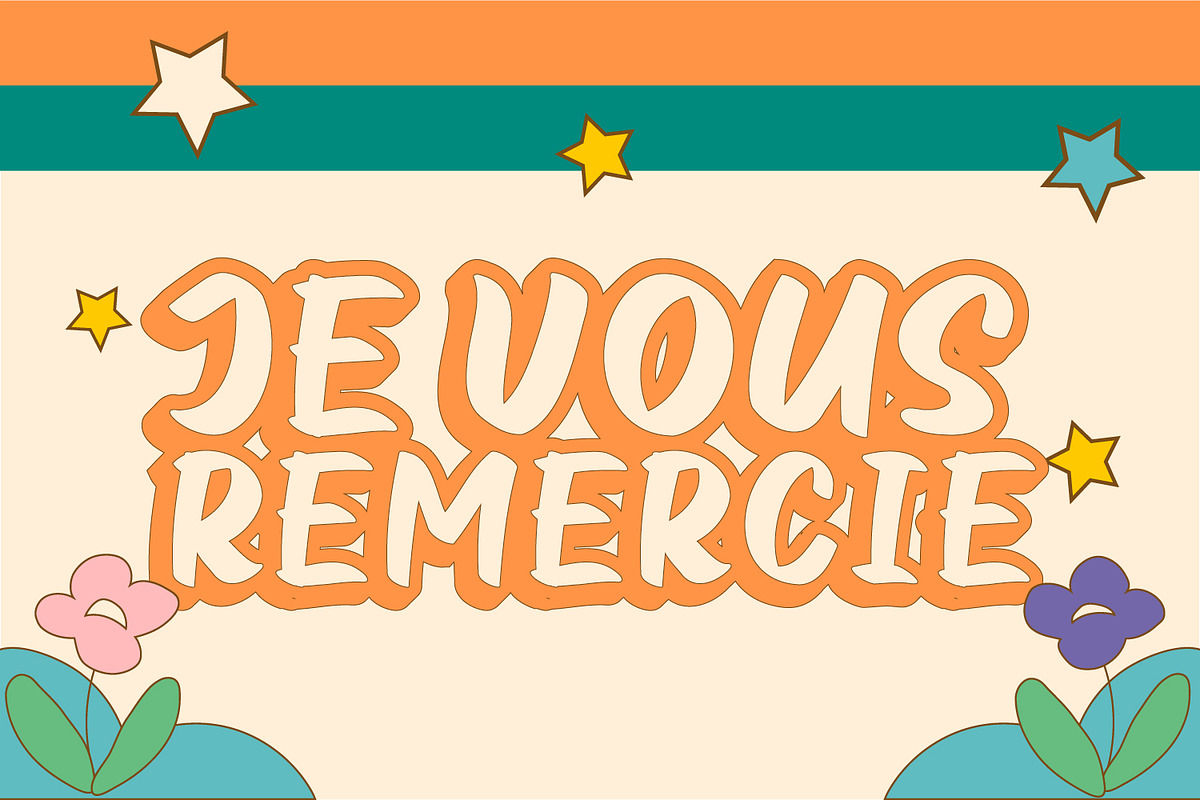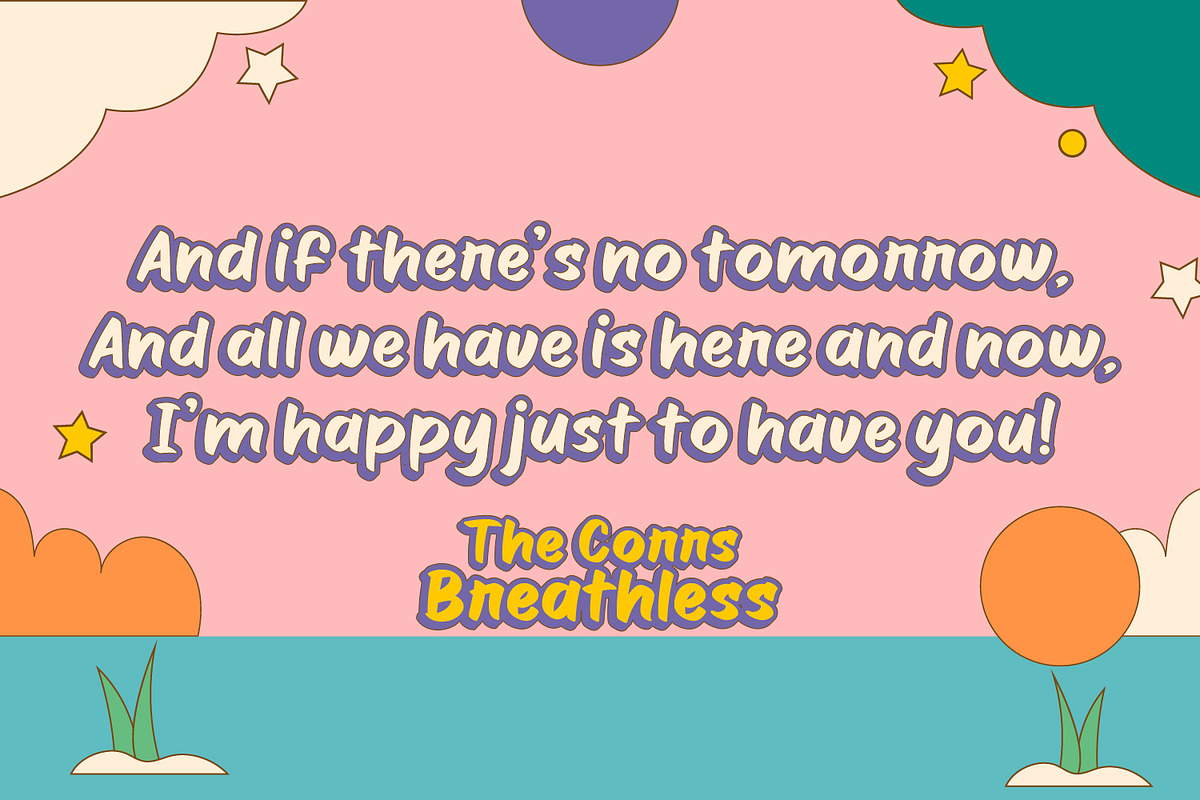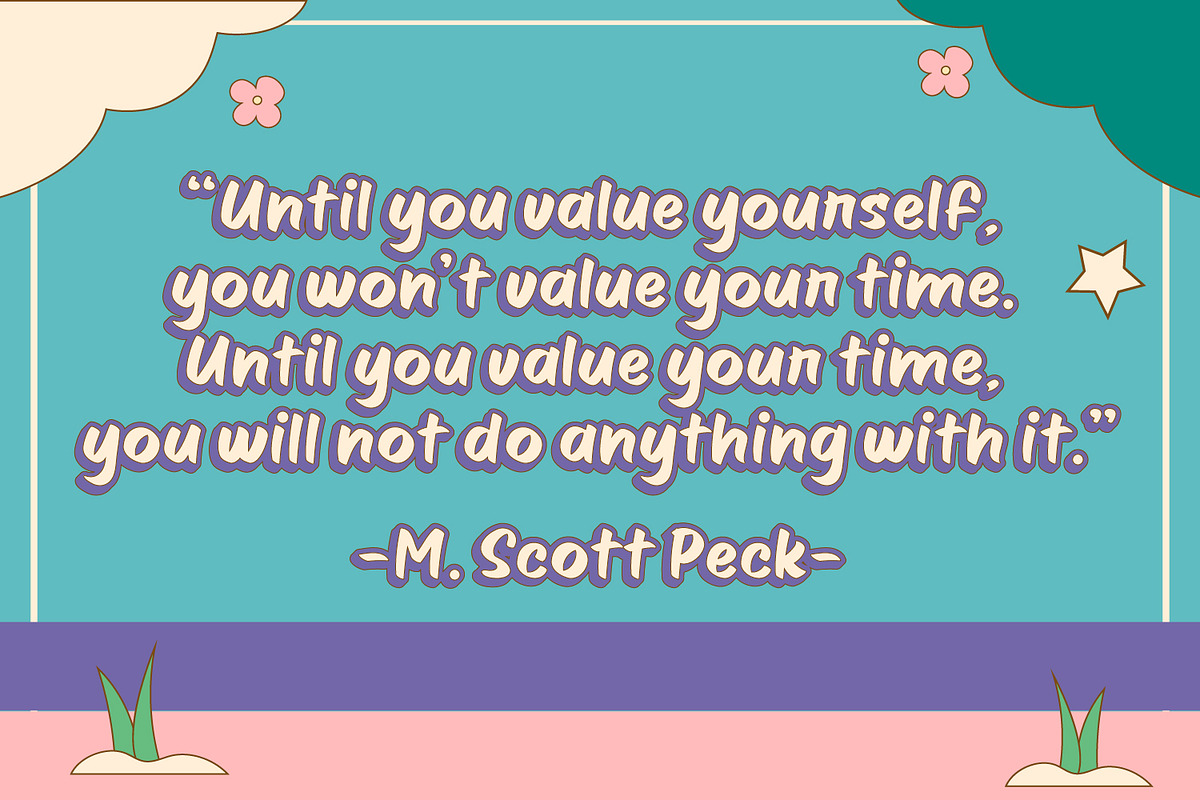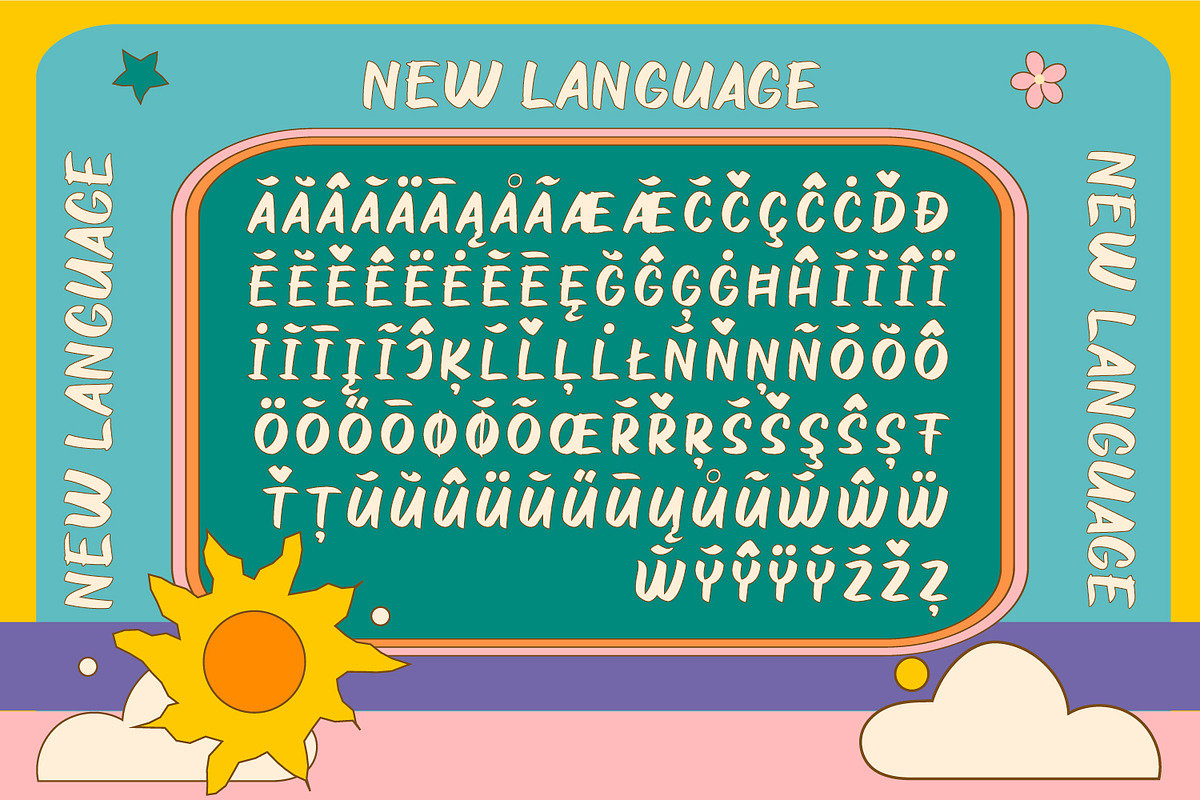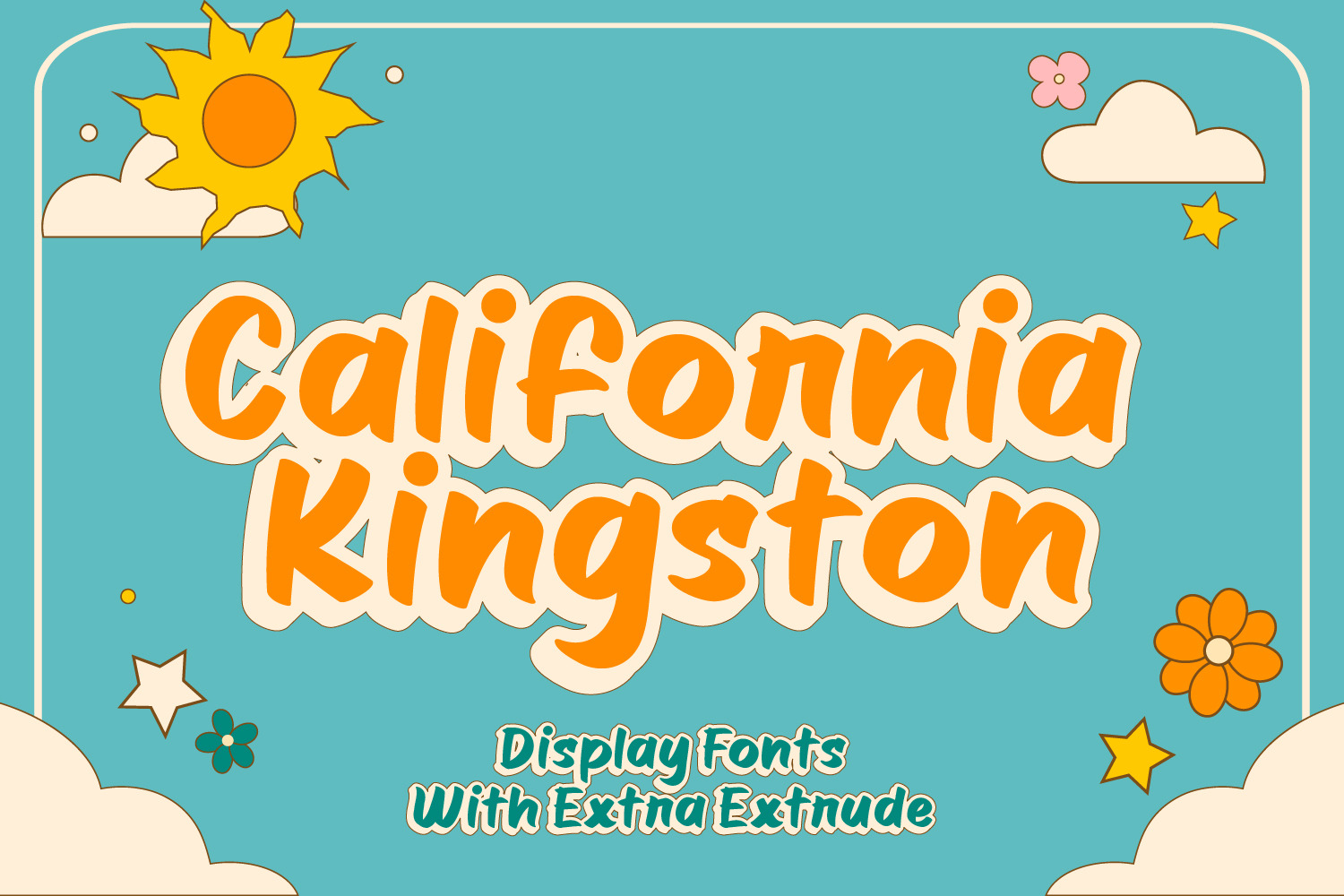
California Kingston - Layered Fonts
Hello there, here's the new layered font California Kingston. California Kingston is display font with extra Extrude Style. Easy to read, easy to access style. good for your graphic, brand etc.
- Extrude Style
- European Multilingual